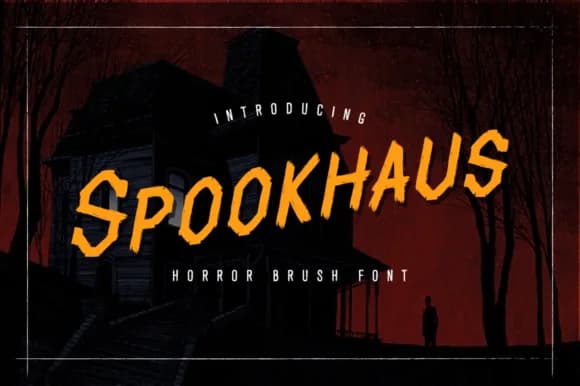
This font radiates genuine dread and cinematic intensity. Spookhaus, created by VonTypeCo, is a brush script that authentically channels the visual language of 1960s horror cinema through sharp, muscular letterforms and irregular stroke weights.
The hand-drawn quality and dramatic weight variation make this typeface especially effective for horror movie poster tributes, vintage band merchandise artwork, Halloween event invitation suites, theatrical horror novel cover designs, retro horror packaging for specialty retailers, and DIY haunted attraction promotional materials. Modern scripts feel far too polished and safe for this work. You need raw, authentic character that screams grindhouse authenticity, and Spookhaus delivers it without hesitation. The type includes an italic variant, expanding your compositional options when building layered, complex designs with multiple typographic voices working together. Every stroke carries genuine weight and intention, capturing the hand-lettered energy of classic monster movie lobby cards and promotional materials from cinema's golden age of horror.
Use Spookhaus as your design's primary focal point and emotional anchor. Pair it with a clean, modern sans-serif for any supporting text or information to maintain visual hierarchy and clarity. Find it on Creative Fabrica and bring retro-horror atmosphere into your next project or campaign.
Spookhaus Font is a script font that shines as a display or heading face. Pair it with a clean sans-serif or serif font for body text β the contrast creates a clear hierarchy while the two styles stay balanced and easy to read.